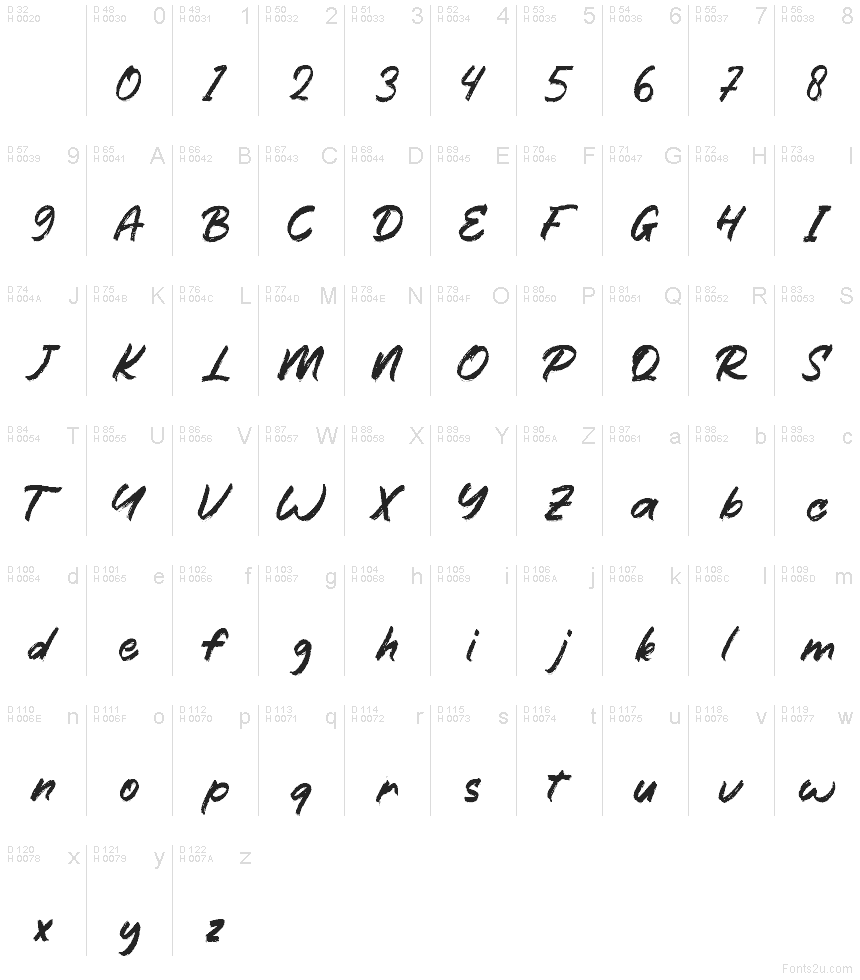
Breksit Brush Regular
Breksit Brush font by Tezar Tantular is a free brush script typeface. Its dry-brush texture carries gritty, inky ridges that look freshly swiped across paper, with a quick forward slant that adds momentum. Strokes thicken and thin like real bristles hitting and lifting, giving headlines a raw, human snap without sacrificing readability.
Using Breksit Brush, your work gets that punchy, hand-painted energy that shines on music flyers, streetwear marks, sports graphics, food packaging, craft beer labels, and bold social posts. The rhythm feels fast and slightly rebellious, so big sizes sing and smaller subheads still hold their own. Pair this free font with a clean sans-serif for body copy, and add a touch of tracking to let the texture breathe.